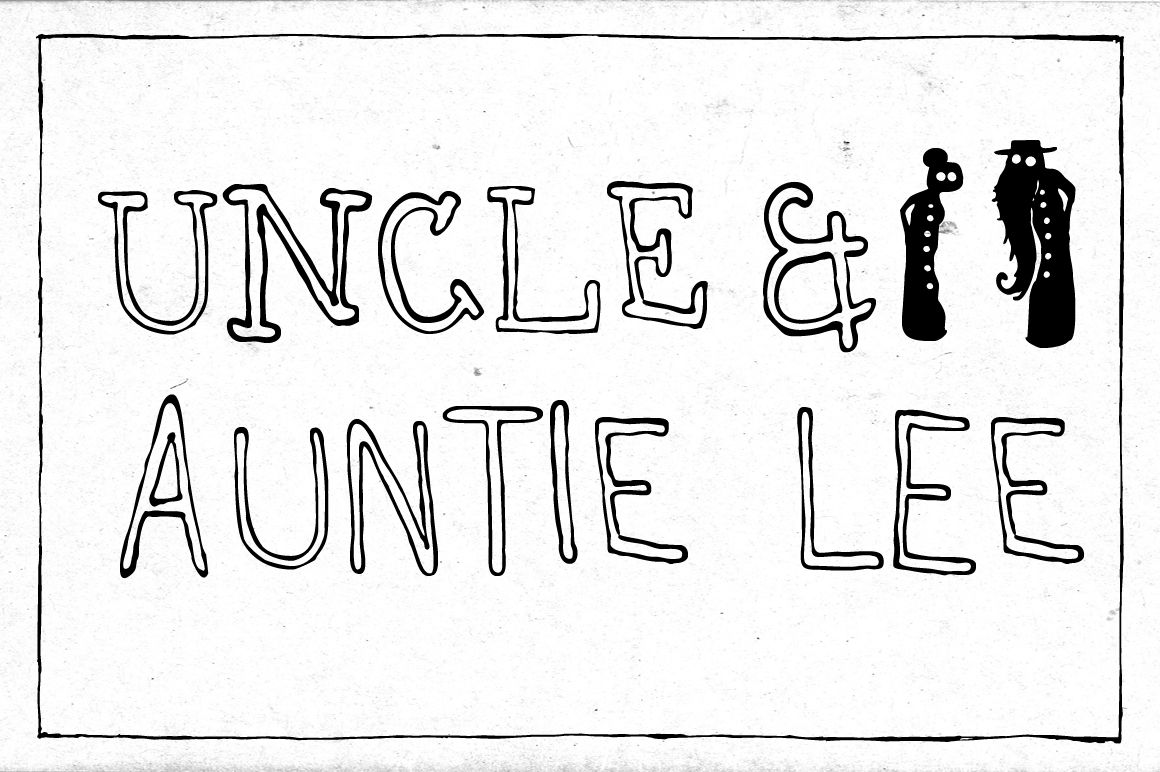
Uncle & Auntie Lee -Family (6 fonts)
Family reunion! Meet Uncle Lee & Auntie Lee - hand drawn and playful serif & sans serif! A upper-case-only font with upper-case-variants on the lower-case letters. With three happy versions - regular, outline & thin - you just can't go wrong!